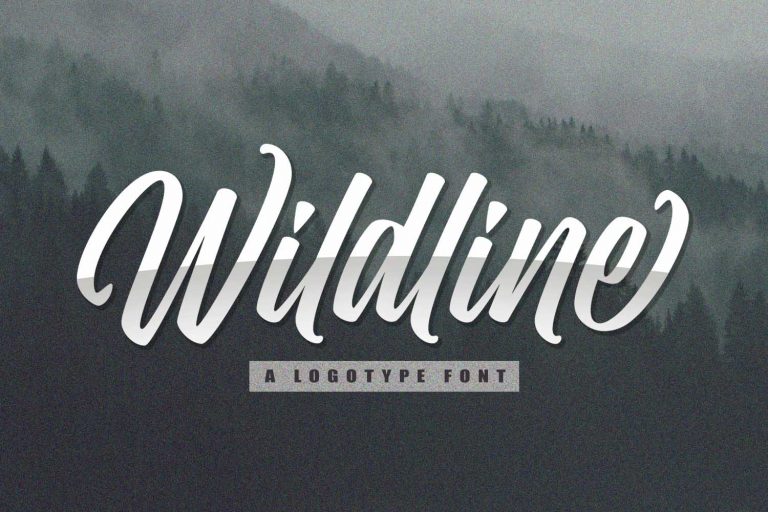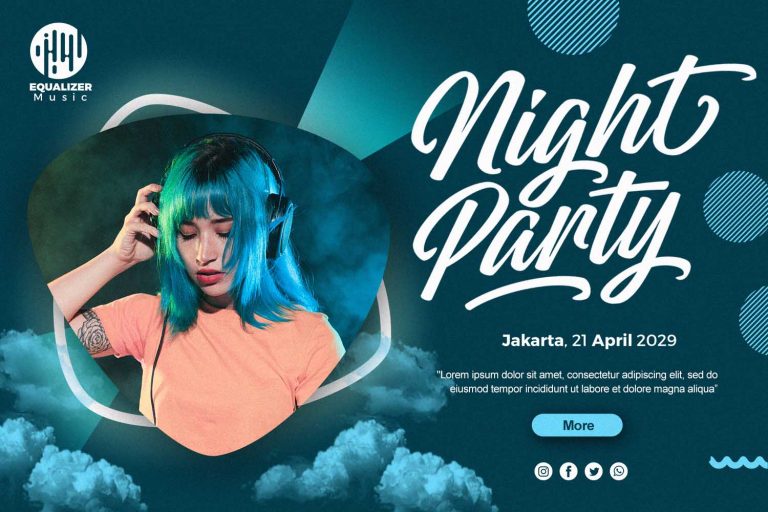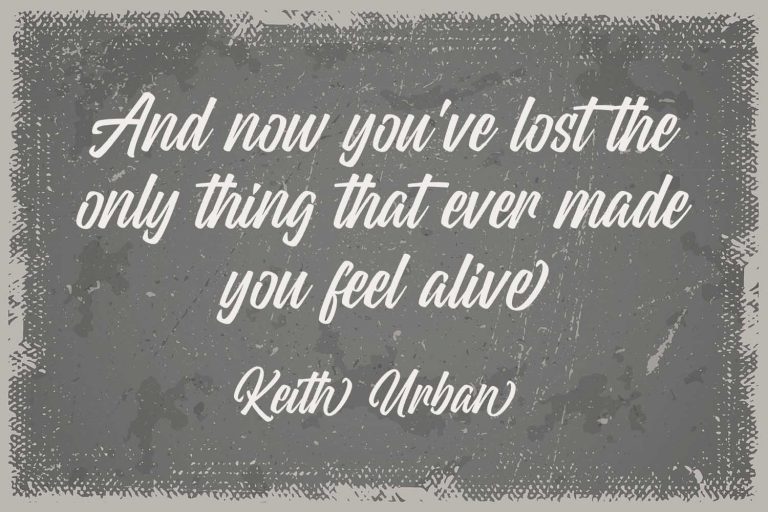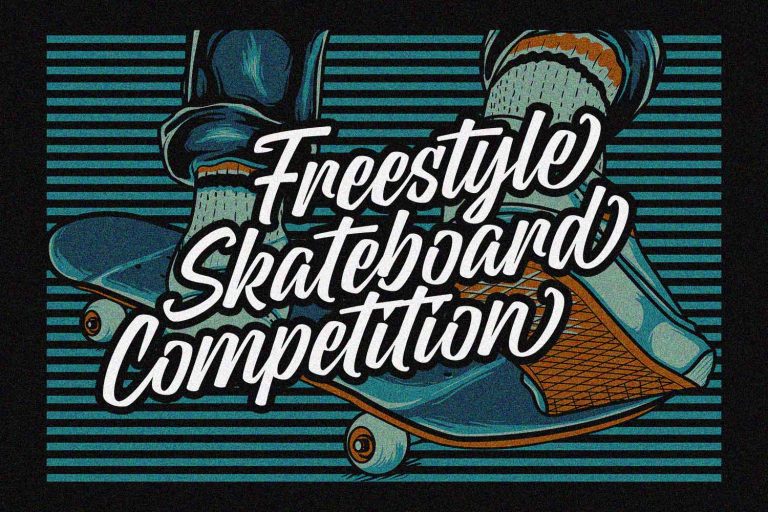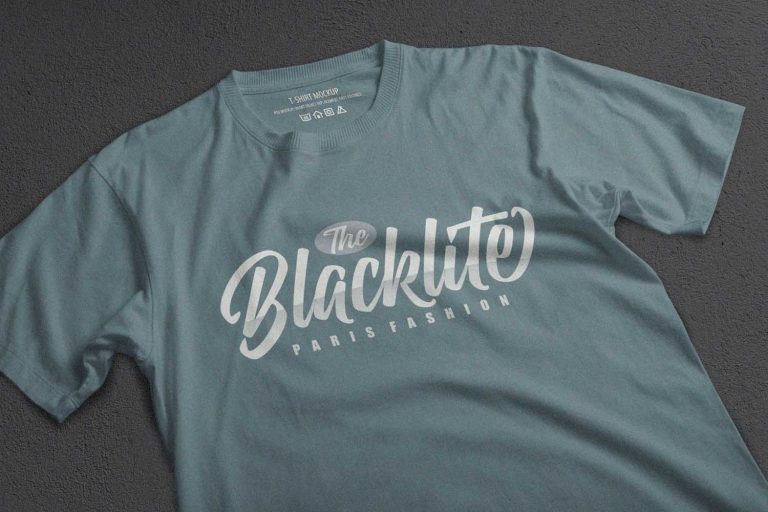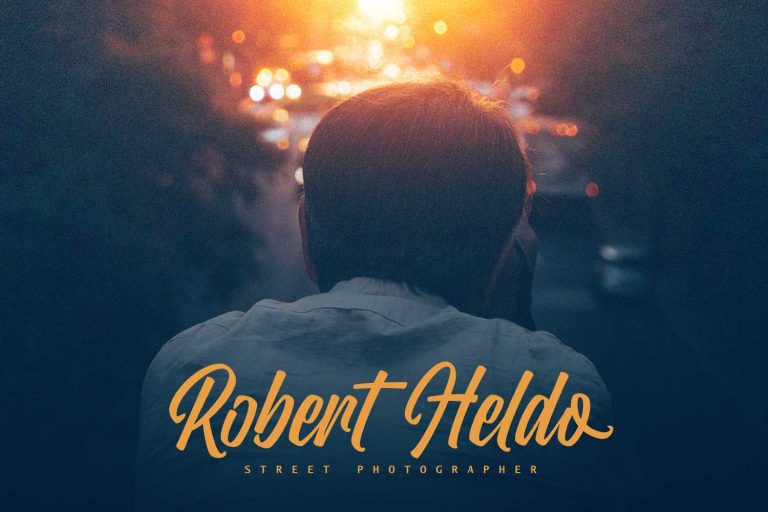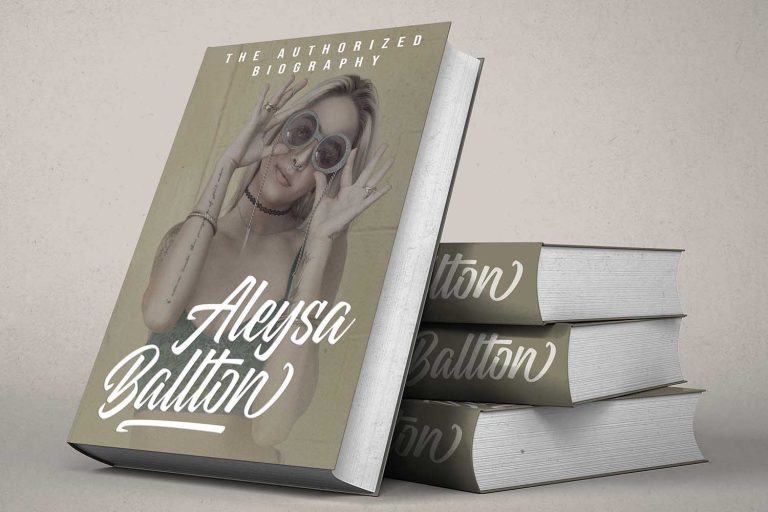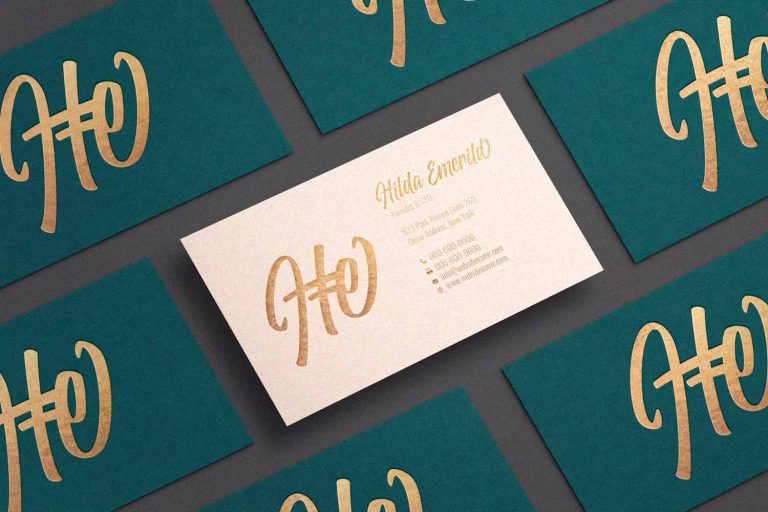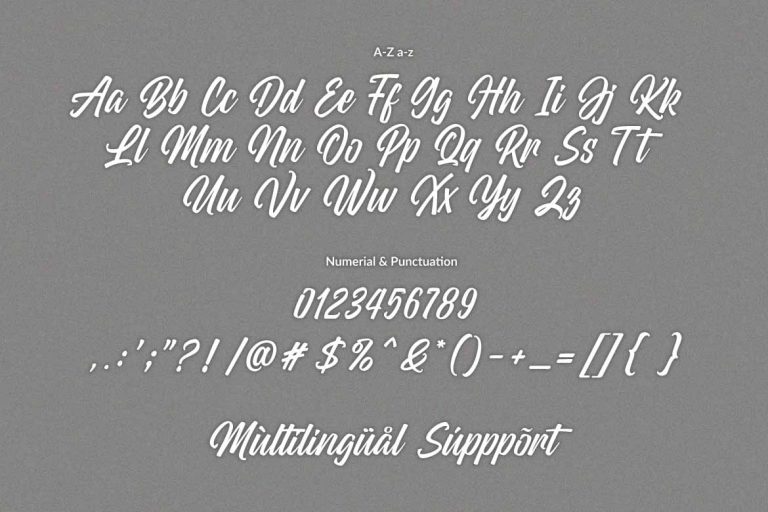
Wildline
The Wildline Font is A Logotype Font. This font was created to help you designing logotype or lettering style logo for your Brand or your clients,
and you also can use it for designing all of the graphic stuff such as badge, sign, packaging, headline, title, T-shirt/apparel,
Poster, etc. The Wildline was designed for personal characters such as strong, confidence, dynamic, readable, Energic, dynamic, etc.
it has an extensive lingual support, covering European and Asian Latin scripts.
The font contains all characters you’ll ever need, including all punctuation and numbers.